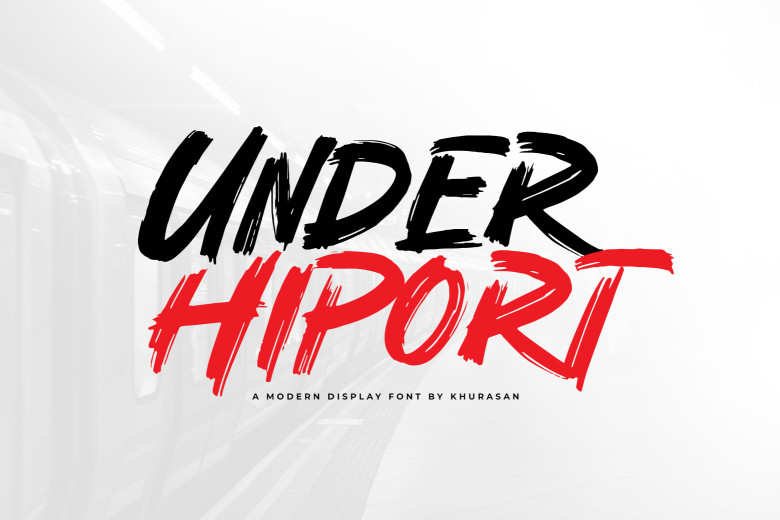
Under Hiport is a stylish brush typeface suitable for logos, posters, books, magazines banners and much more! Take advantage of its trendy strong brush typeface to design beautiful logos, posters, books, magazines banners and much more! Use its handwritten font and use it in designing striking designs! Hiport fits seamlessly with many designs – incorporate it into your creative concepts and see them stand out!
Under Hiport Brush Script Font